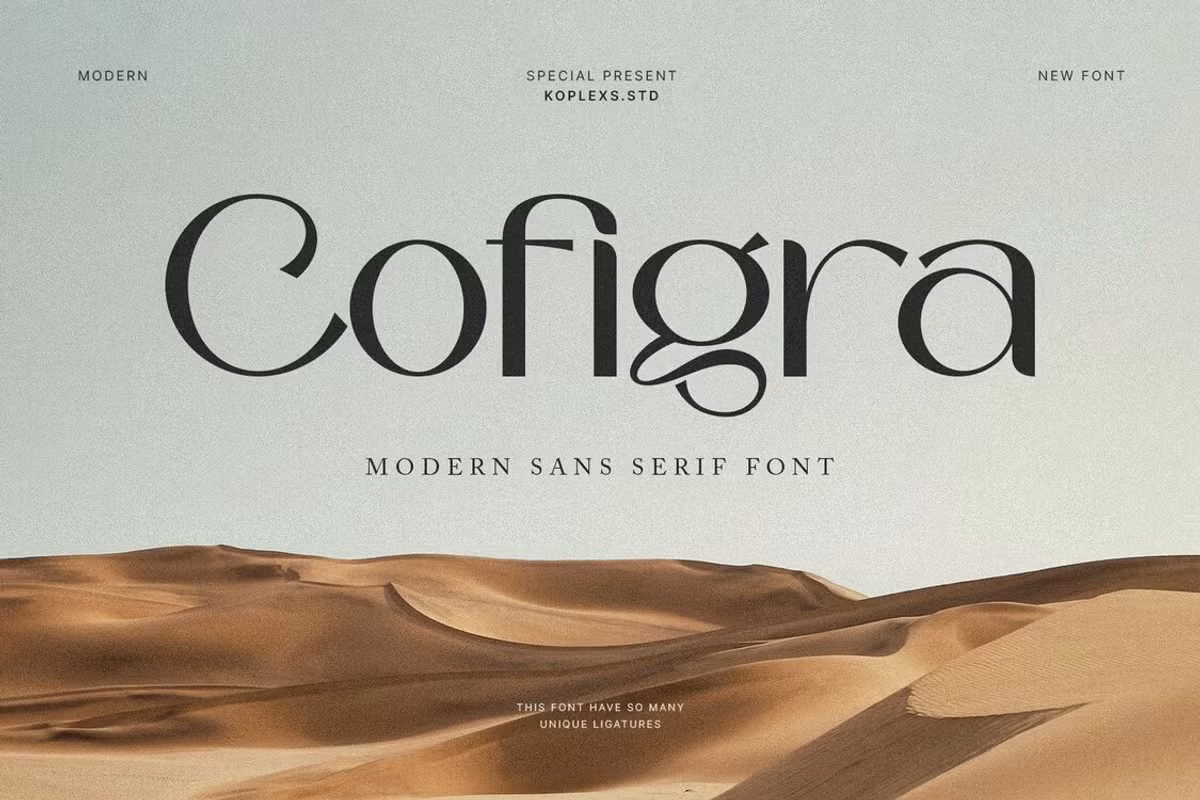
Cofigra - Modern Sans Serif Font Free Download
Cofigra – Modern Sans Serif Font Free Download is a sleek, minimalistic typeface designed for contemporary branding and clean visual communication. Ideal for websites, tech startups, packaging, and editorial design, this font offers precision, readability, and a modern aesthetic.
With its sharp geometry and professional tone, Cofigra – Modern Sans Serif Font Free Download stands out in both digital and print formats. It’s the perfect choice for designers looking to create a clean and sophisticated look without sacrificing personality. Whether you’re building a visual identity or crafting UI/UX elements, Cofigra provides the flexibility and style you need. Try it in your next project and experience its clarity before moving forward with a commercial license.